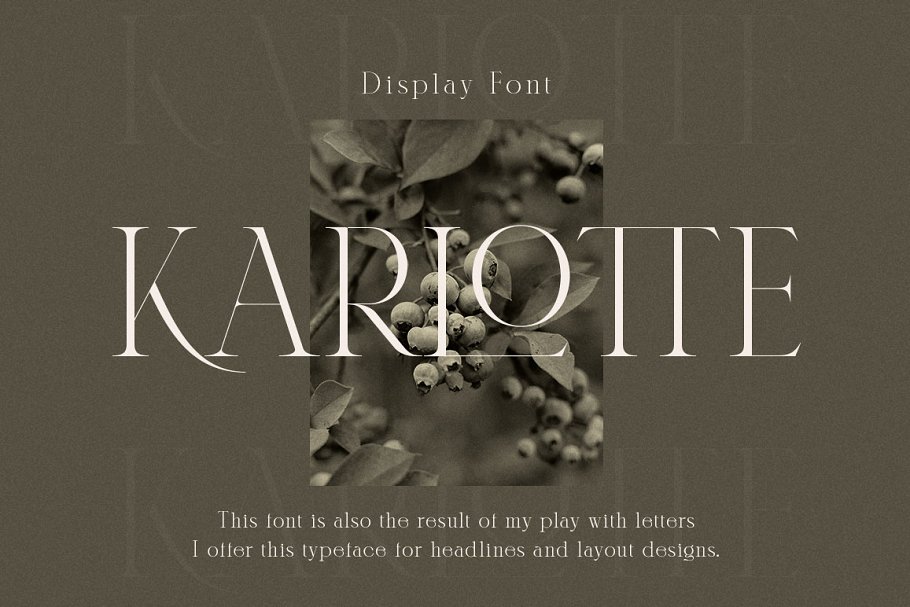
Looking for the perfect font to give your project a luxurious feel? Look no further than Karlotte, an elegant modern serif font created by Zahratul Laila. With its smooth edges and romantic curves, this font is the perfect choice for any design project that needs a touch of sophistication.
Karlotte comes with a full set of uppercase and lowercase letters, as well as 56 ligatures, 20 alternates, and numbers, symbols, and punctuation. It also supports multiple languages and is PUA encoded, making it a versatile choice for any project.
Whether you're designing a fashion magazine, logo, branding, or wedding invitations, Karlotte is the perfect font to add a touch of elegance to your project. And with 46 included ligatures, you'll have plenty of options to create eye-catching titles and headlines.